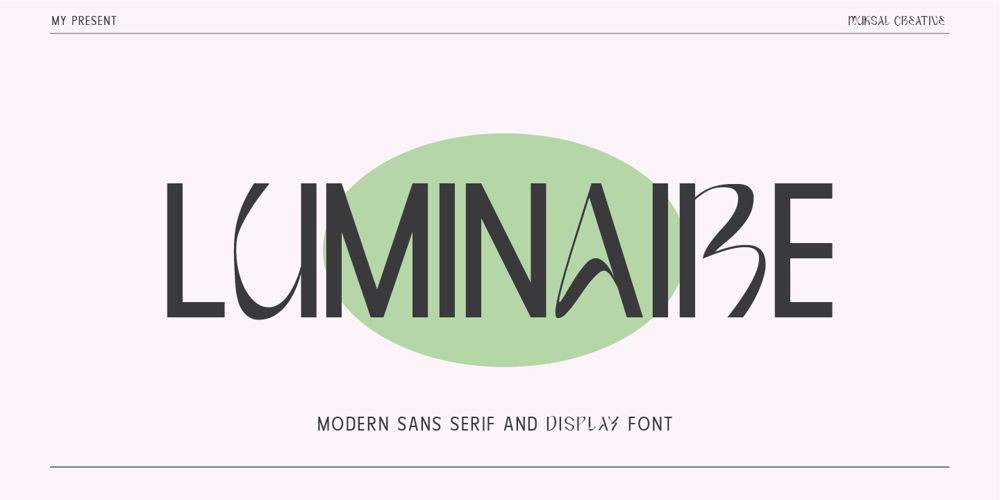
Luminaire
Luminaire font
Luminaire Font Family was designed by Muksalmina and published by Muksal Creatives. Luminaire contains 1 styles and family package options. Luminaire is an intriguing and modern sans serif font. With its clean and minimalist characteristics, Luminaire exudes a professional and contemporary impression when used in designs. One of the captivating features of Luminaire is its alternate style, specifically the display style. This unique feature allows users to combine two different styles within a single word, creating a distinct and eye-catching visual appearance. In display mode, Luminaire offers experimental and striking variations of letterforms. Certain characters exhibit alternative shapes with artistic touches, such as curved lines or changes in the basic structure of the letters. This grants greater design flexibility and makes words written in Luminaire font stand out. Luminaire also maintains the essential aspects of clarity and legibility expected from a sans serif font. When used in longer texts or paragraphs, this font remains easy to read and provides a professional and well-organized appearance.Overall, Luminaire is an appealing sans serif font with a modern style and a unique alternate style feature. It can add artistic touches and uniqueness to your designs while preserving the important aspects of clarity and legibility.